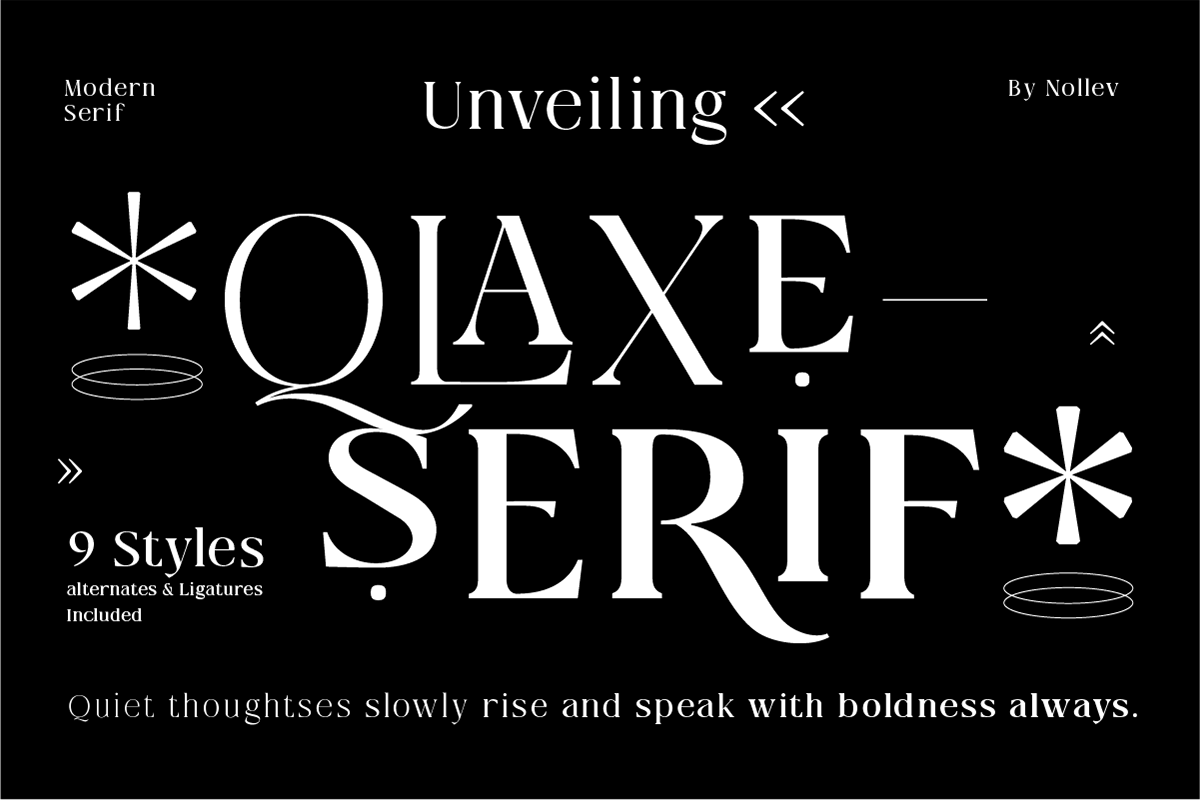
Qlaxe – Modern Serif Font is the part of a font family with a clean, confident presence and a hint of luxury. With distinctive ligatures and 9 refined styles, Qlaxe offers flexibility for everything from branding and logos to editorial layouts and packaging. Its sharp details and stylish curves give your design a polished yet expressive voice.